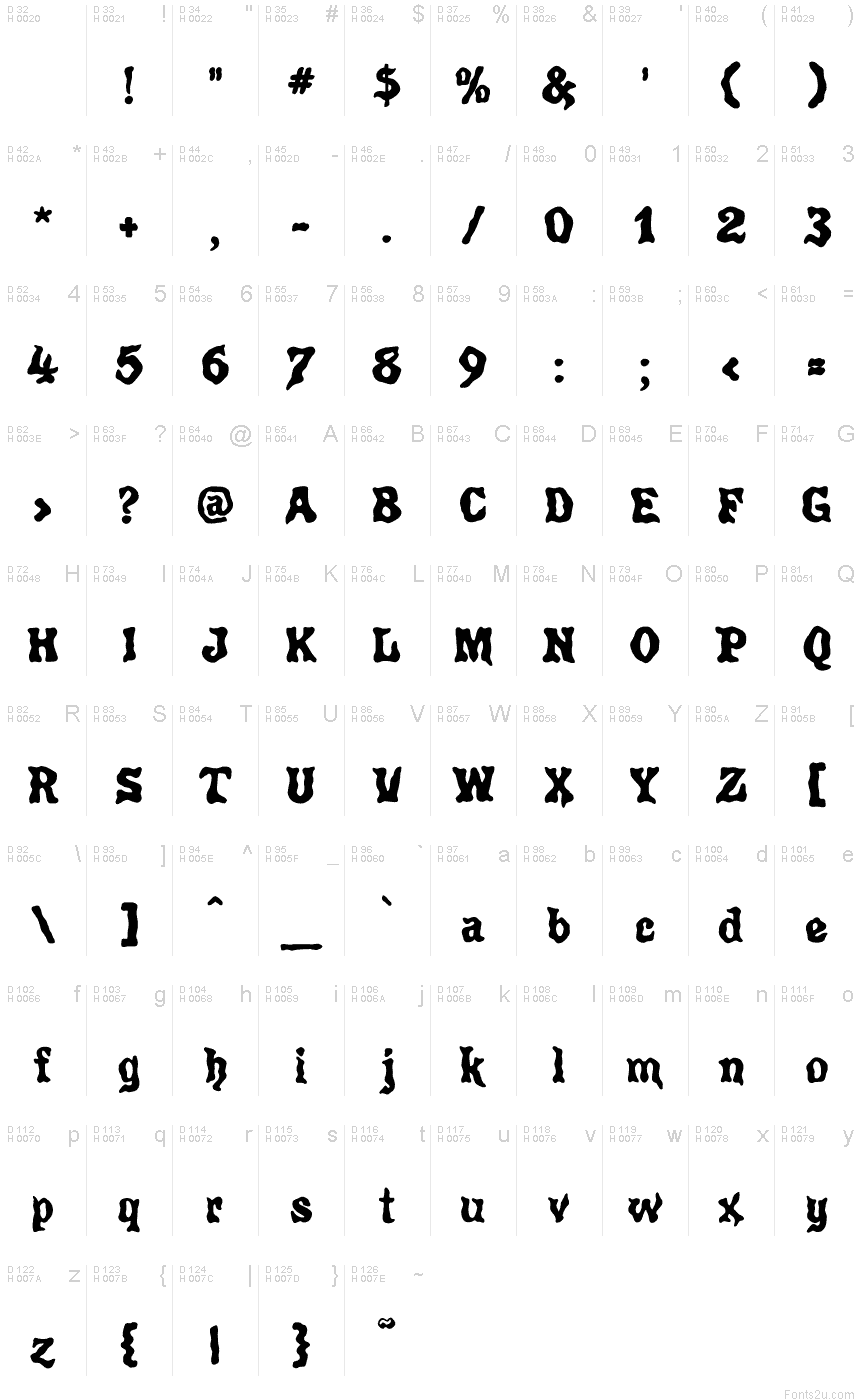
Poultrygeist
Poultrygeist, from Apostrophic Laboratories, is a free spooky horror display font with a blunt, melting alphabet that feels more midnight B-movie than polished goth. The letters look swollen and uneven, with soft drips, lumpy curves, and a hand-shaped wobble that keeps the mood playful even while it leans dark.
It fits poster work, Halloween party graphics, novelty packaging, campy merch, and eerie cover lines where a free font needs to carry the joke and the chill at once. Use it for title cards, short headlines, or monograms when you want the caps to feel oozy and alive rather than sharp or theatrical.